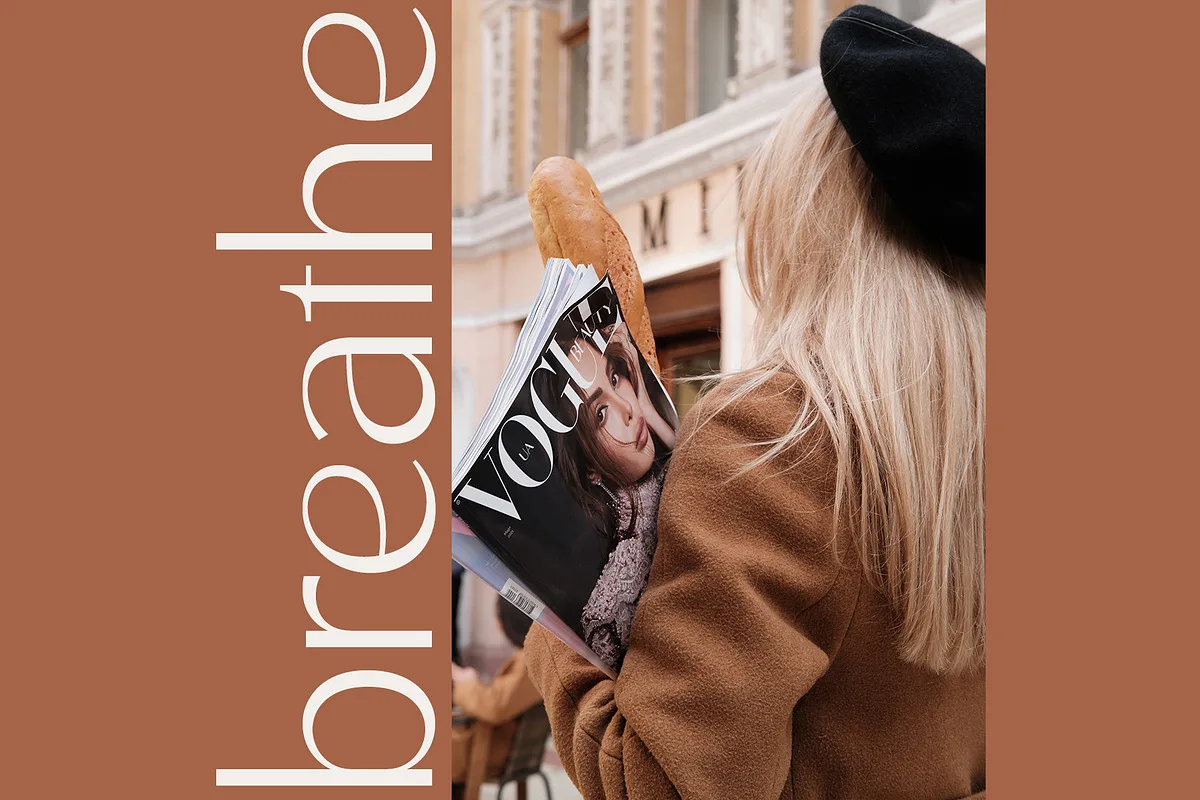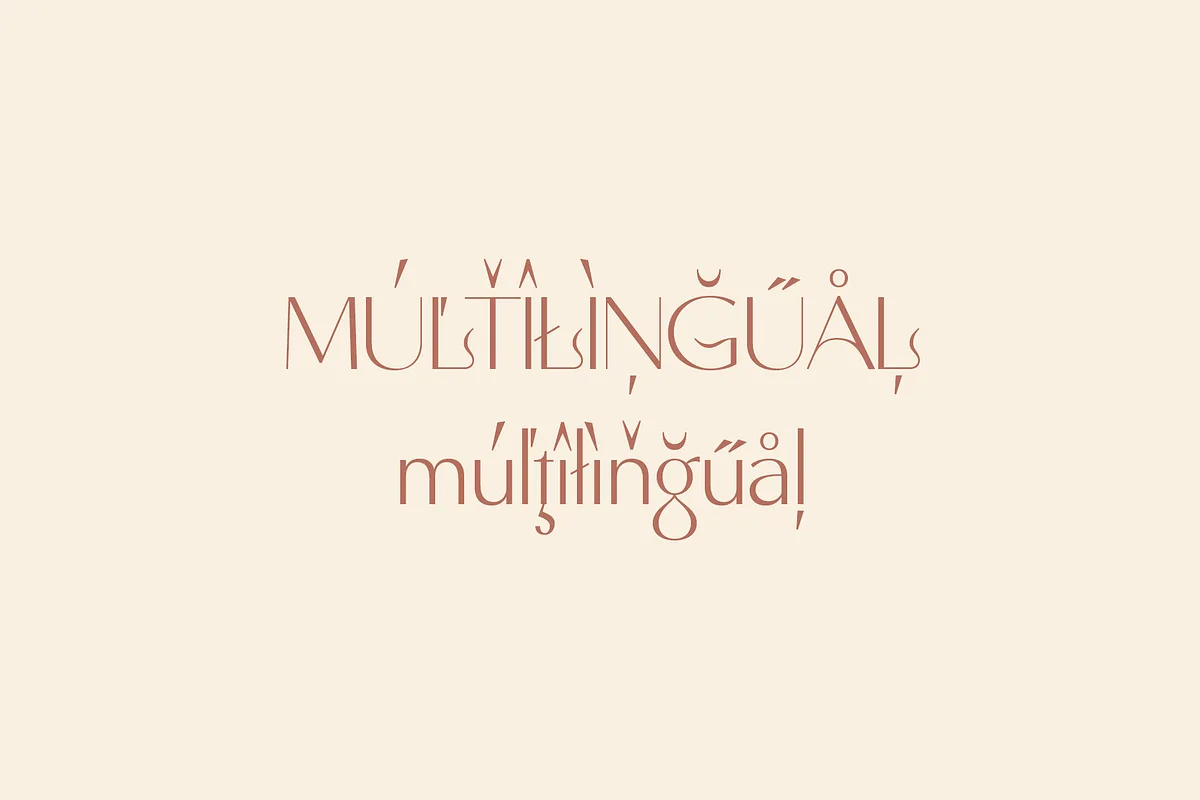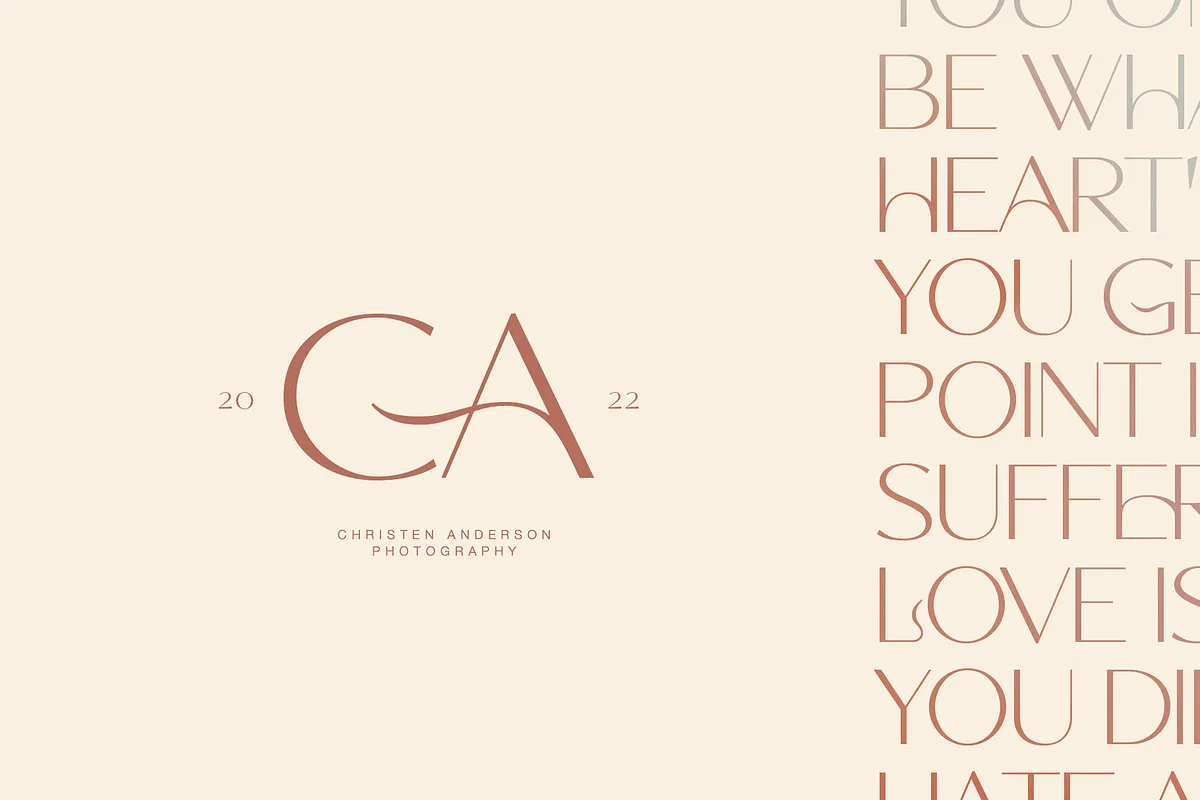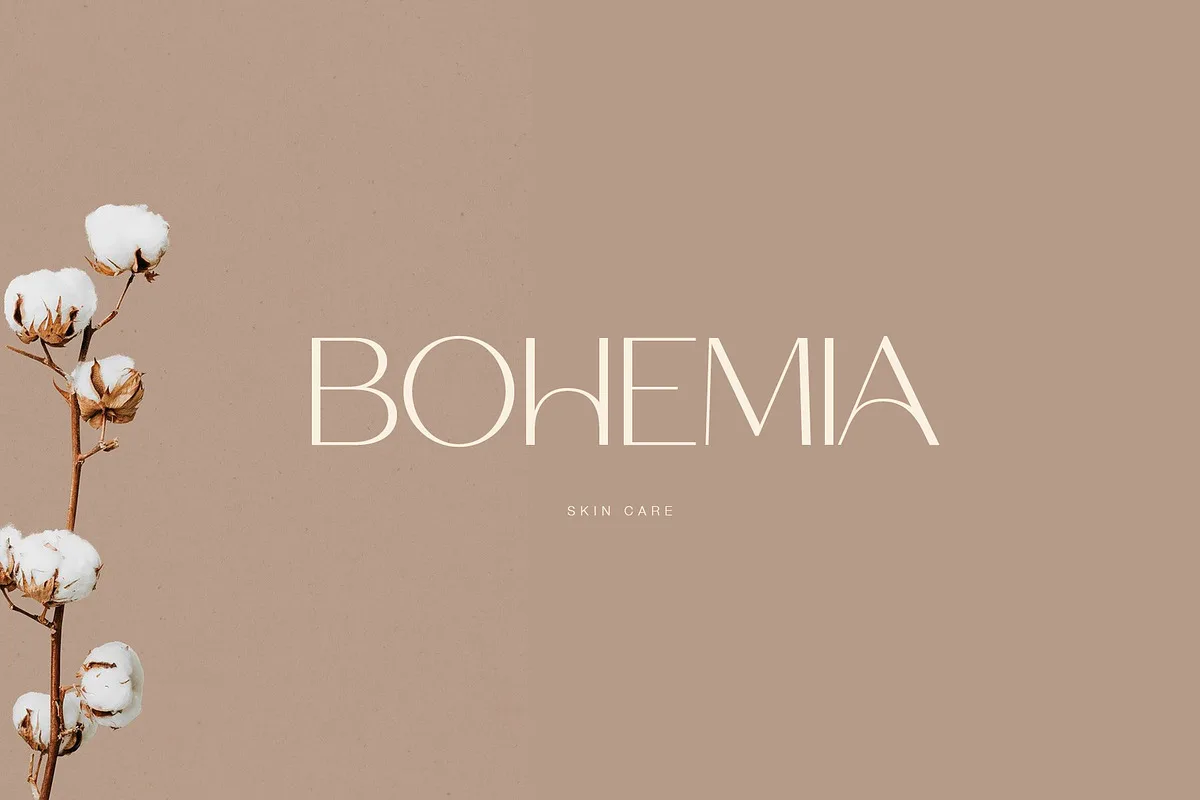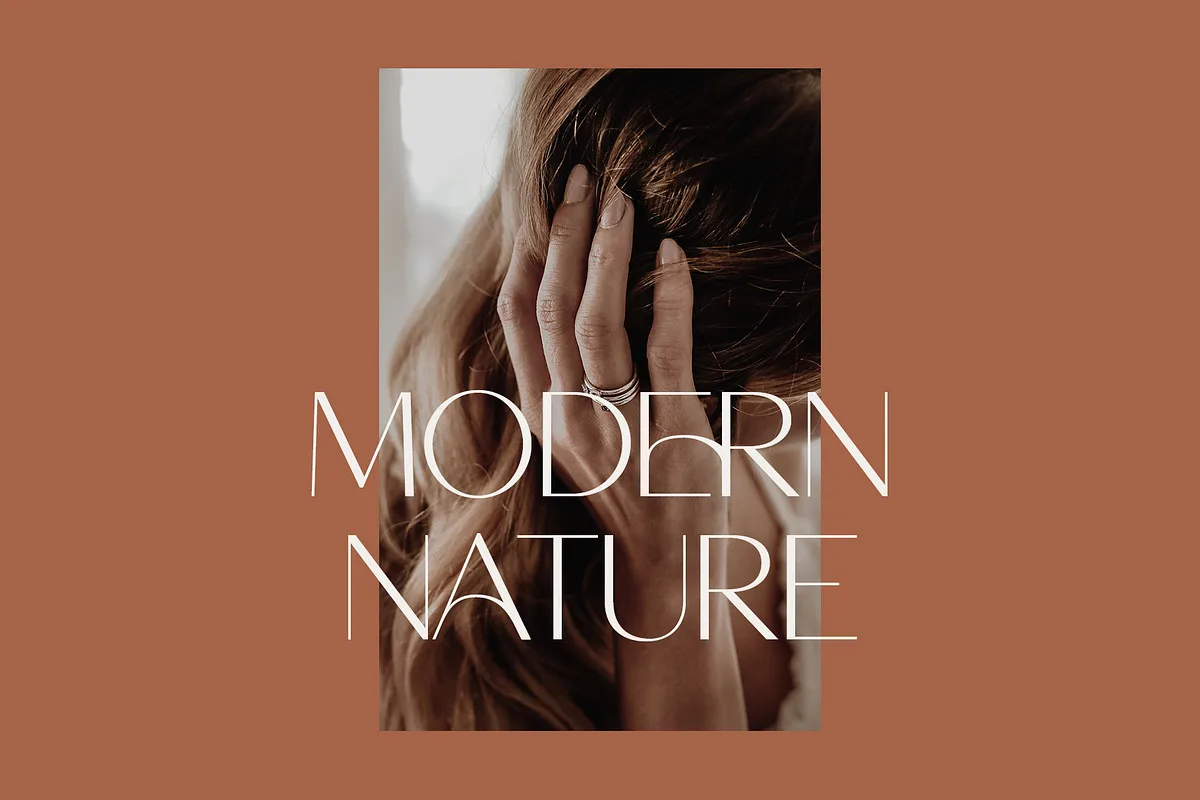
Movere is a modern serif family with vintage charm, fashionable appearance with a touch of retro. Quick access – using the built-in OPEN TYPE functions. Just add “-” or “_” to the letter and instantly get an alternative. This feature works in most applications Font is an open type with clean shapes and precise kerning. It includes ligatures encoded by the PUA. Language support: All European languages